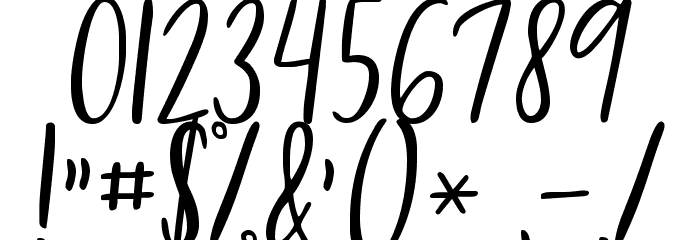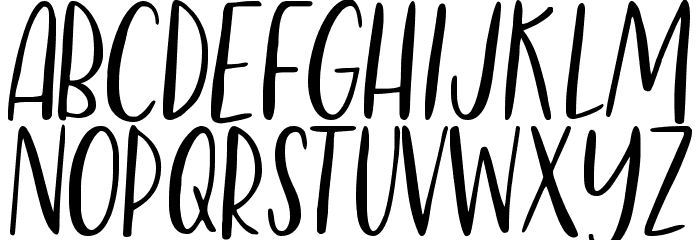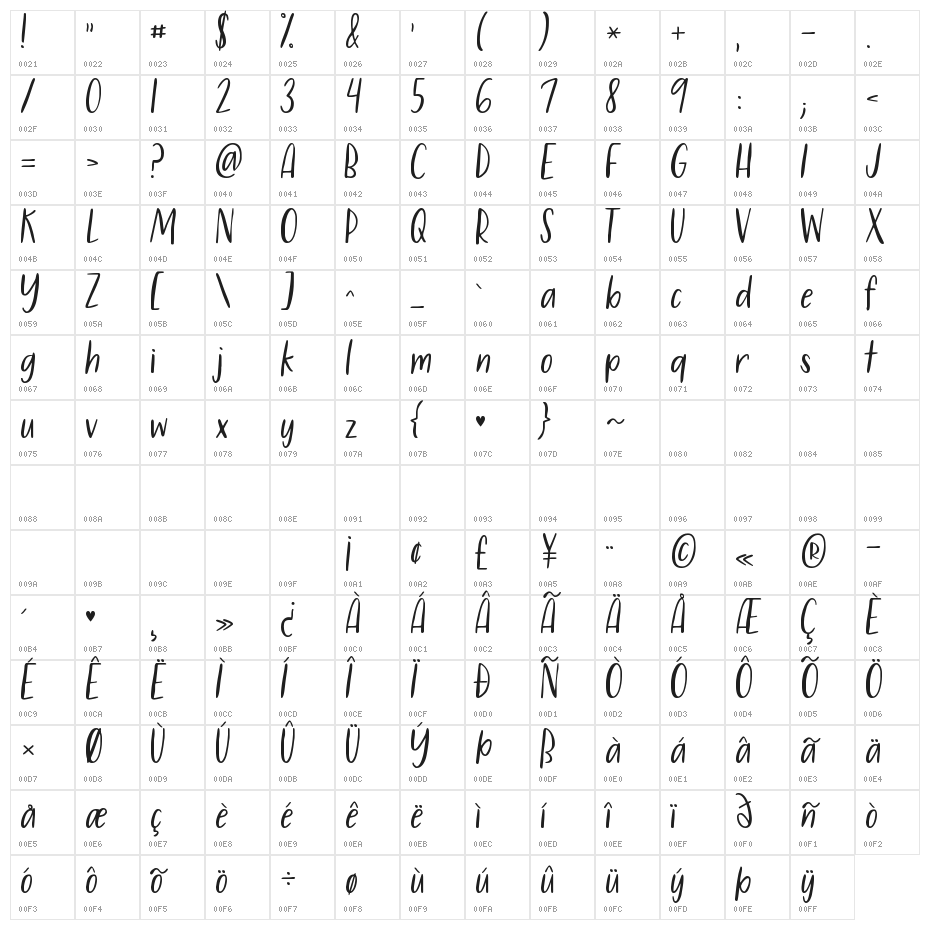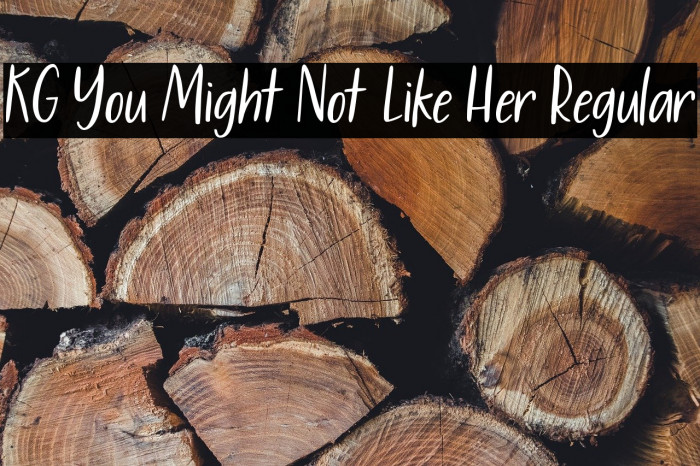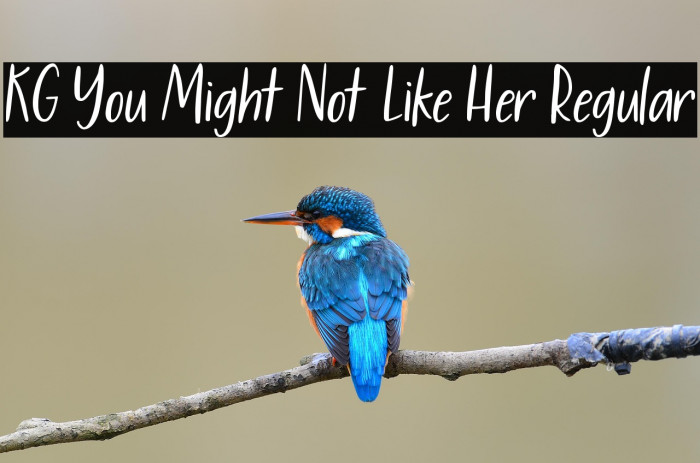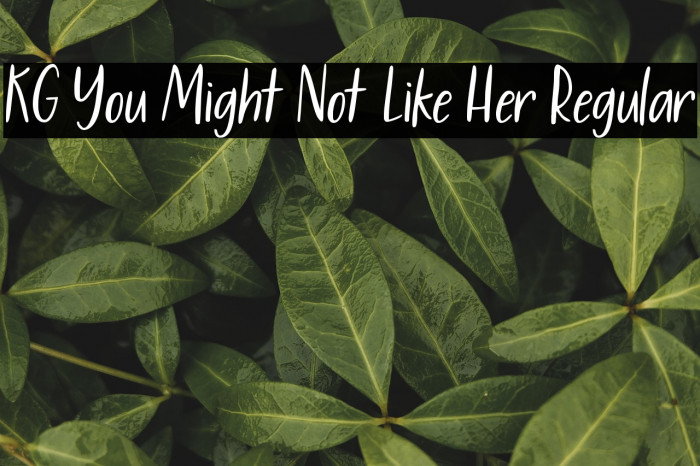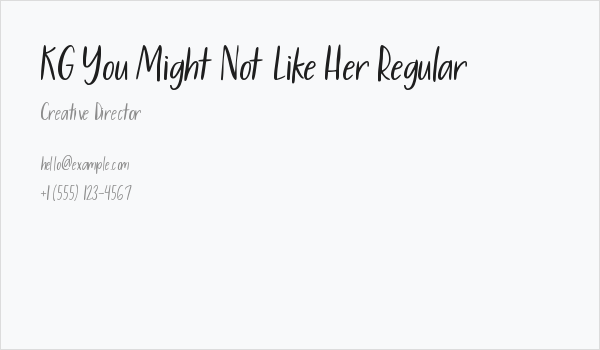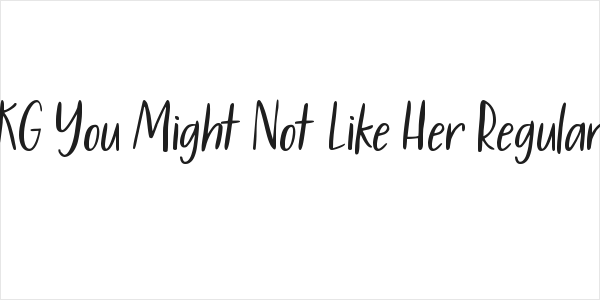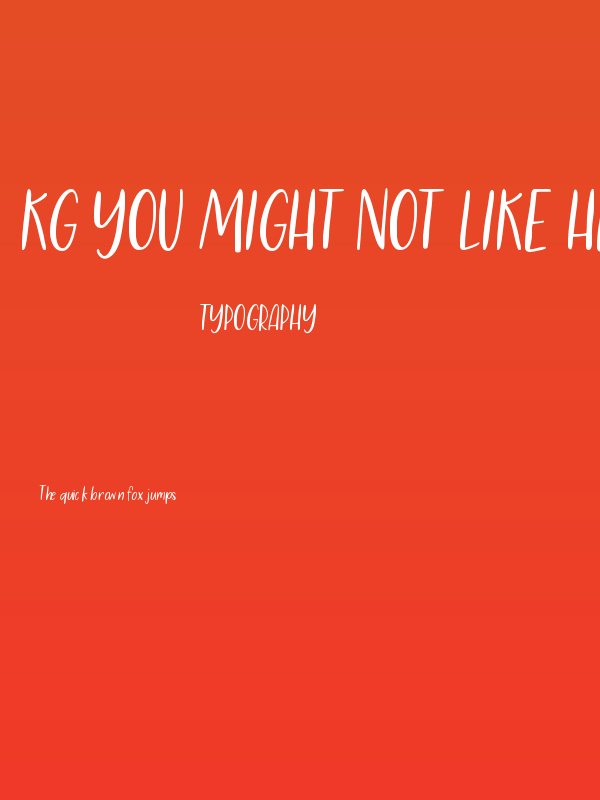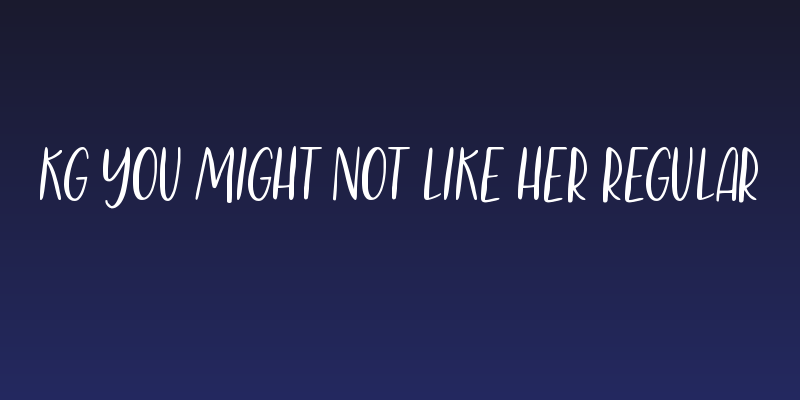
KG You Might Not Like Her Regular Font
KG You Might Not Like Her Regular Description
A casual, handwritten script font with a playful and informal style, featuring slightly irregular strokes and a smooth flow.
| Overall Style | Casual, Friendly, Handwritten |
| Use Case | Headlines, Personal projects, Social media, Invitations |